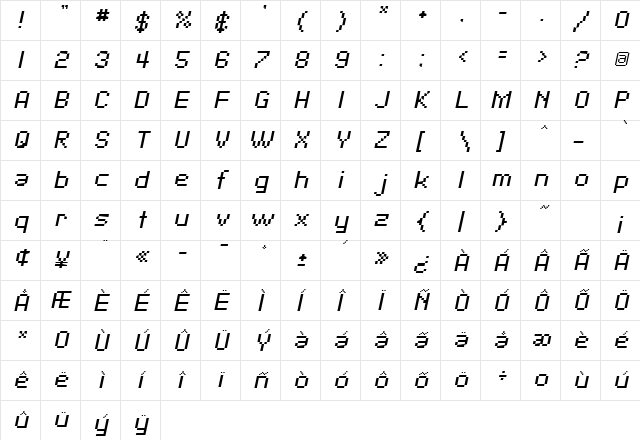
SF Pixelate Oblique Font Preview
SF Pixelate Oblique
Design Context for SF Pixelate Typeface
SF Pixelate is rooted in pixel-grid construction, making it a natural fit for game UI, retro computing aesthetics, and digital nostalgia projects. The dynamic lean of this cut emphasises speed and emphasis in any layout.
Well-suited to indie game interfaces, retro computing aesthetics, and pixel art-adjacent design work.
Pro Tip: Use SF Pixelate at sizes that align with its pixel grid for the sharpest rendering — scaling to non-integer multiples can introduce unwanted blur.